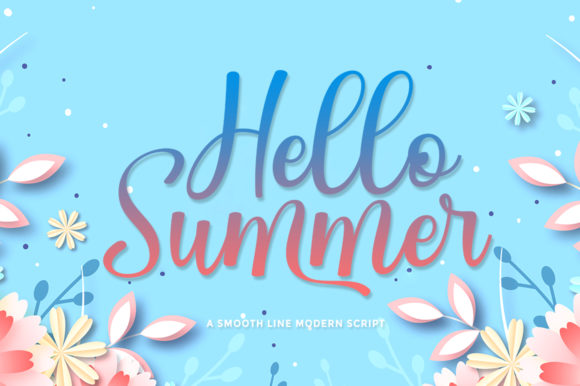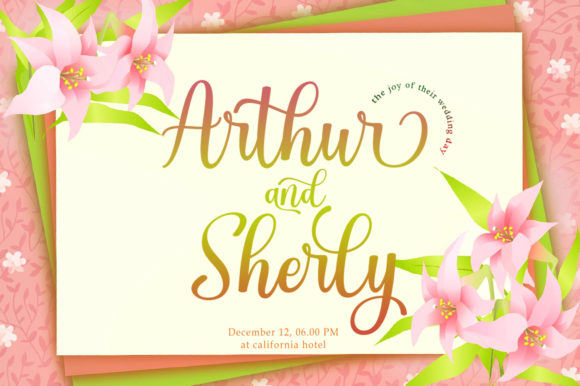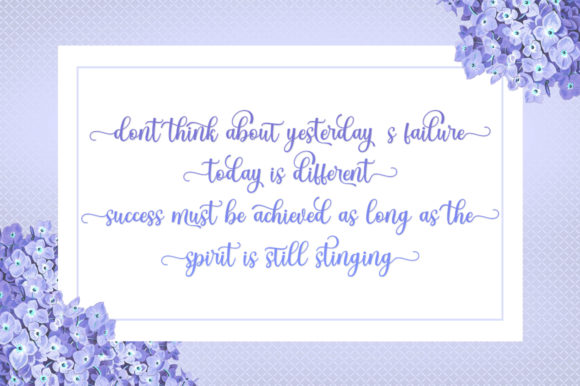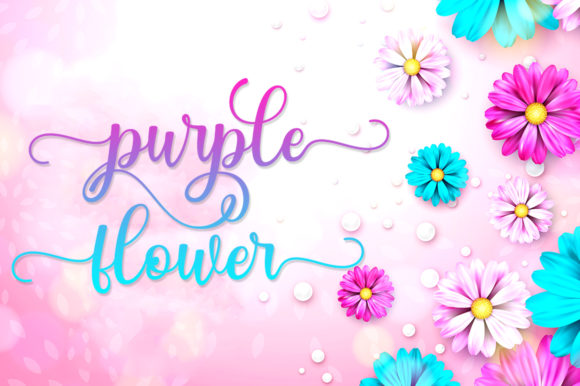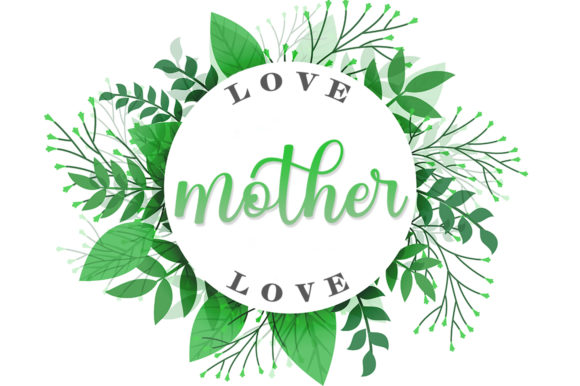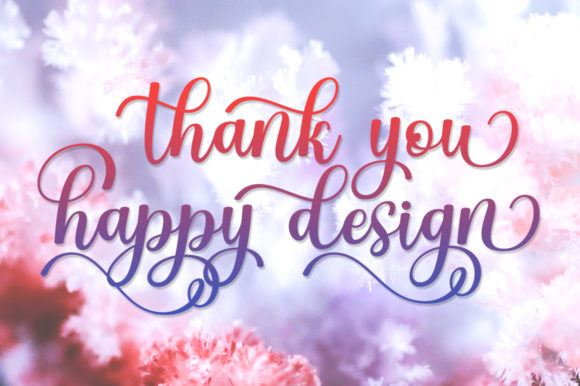
About Hello Summer Font
Hello Summer is an incredibly distinct, delicate, and timeless handwritten font. It looks stunning on wedding invitations, thank you cards, quotes, greeting cards, logos, business cards, and every other design which needs a handwritten touch.